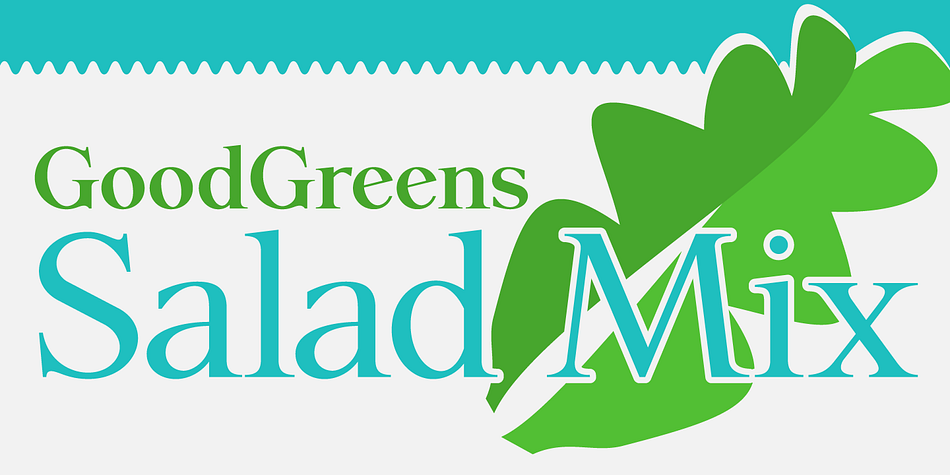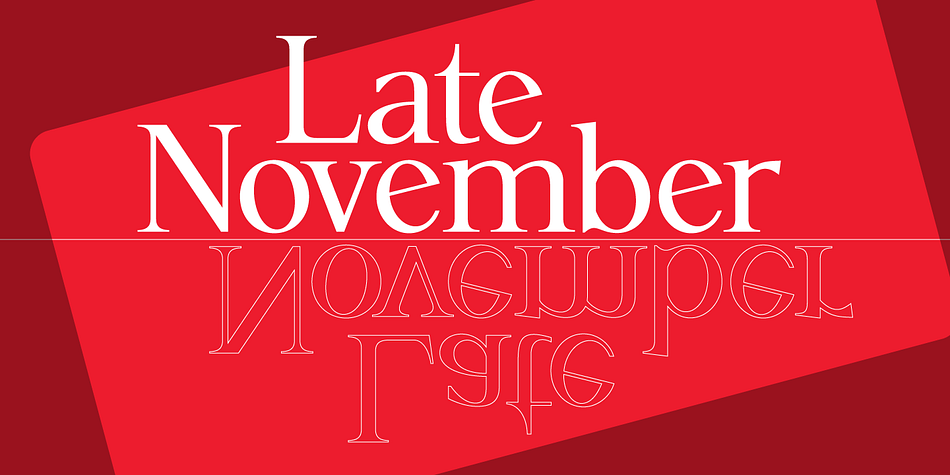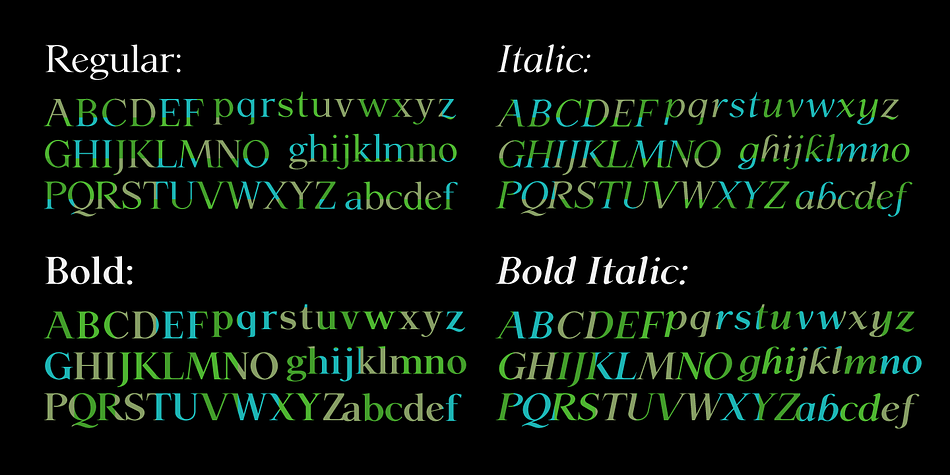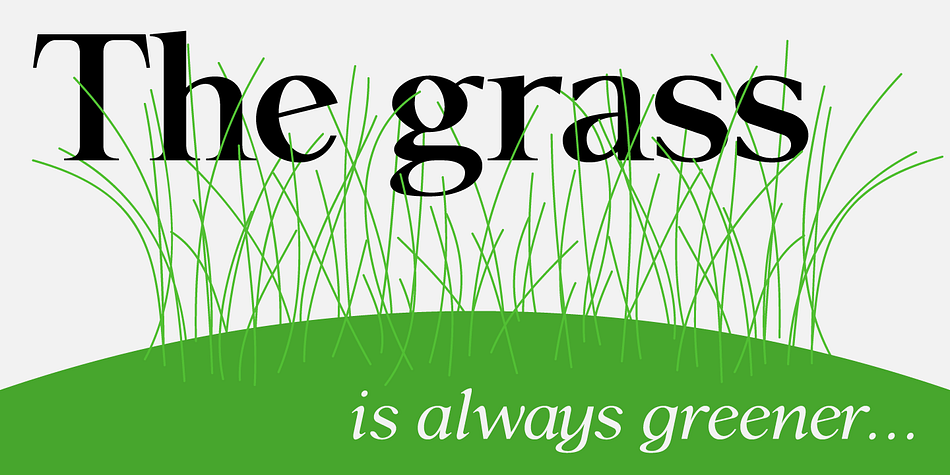
P22 Late November is a serif font family. This typeface has eight styles and was published by International House of Fonts.
P22 Late November Pro is a new font family from Norwegian type designer Torliev Sverdrup. The font is a transitional Antiqua-inspired type design, great for both text and display.